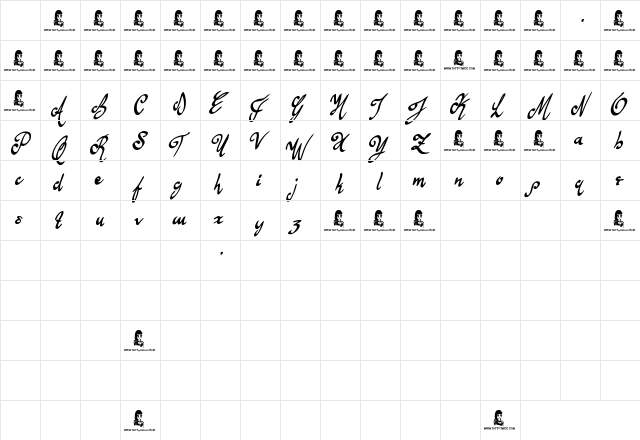
Anything For You is a composed and adaptable typeface that performs quietly and consistently across a wide range of design contexts. Its slender proportions lend an understated elegance to any composition.
Who designed the Anything For You Regular font?
This font was published by Jonathan S. Harris. Check the technical specs section for copyright and designer details.